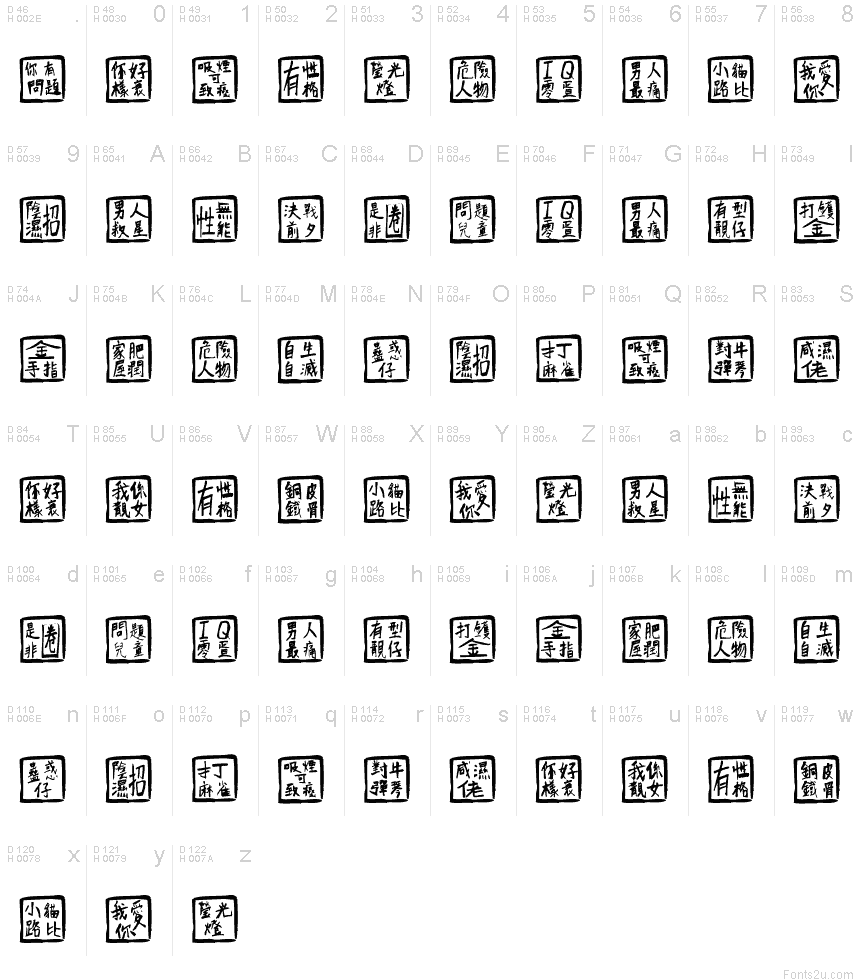
ChineseWhisper
Chinese Whisper font by Rina Cheung is a free Asian dingbat typeface that turns each glyph into a tiny inked tile. Bold, blocky frames hold loose, brushy characters that feel like they were painted in a hurry on rice paper, complete with wobbling edges and inky pools. The contrast between the solid black squares and the lively strokes gives your layouts the feel of stamped seals scattered across a page.
Using Chinese Whisper, you can drop ready‑made calligraphic icons into restaurant menus, packaging, game interfaces, zines, event posters, and social media graphics. The handmade irregularity adds movement and personality, especially when you cluster several tiles as borders or accents. This free font works beautifully when paired with a clean sans serif set small beside the bolder tiles, letting the dingbats act as rhythmic, eye‑catching markers.